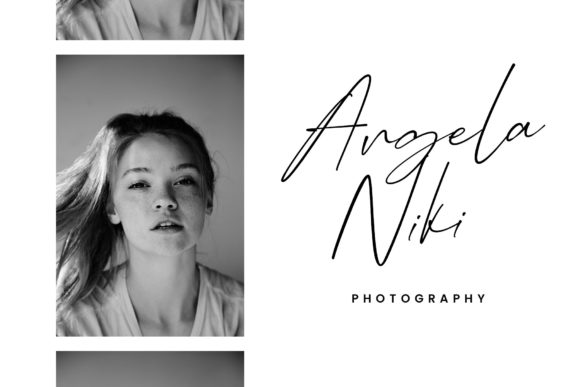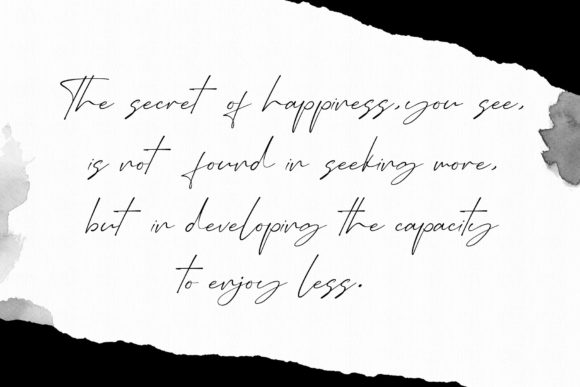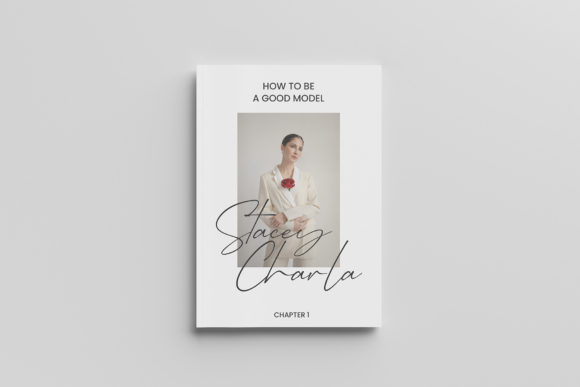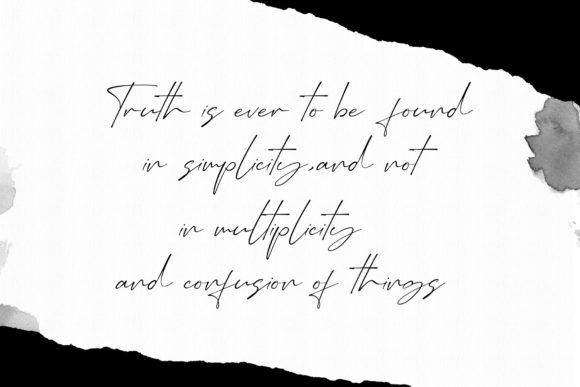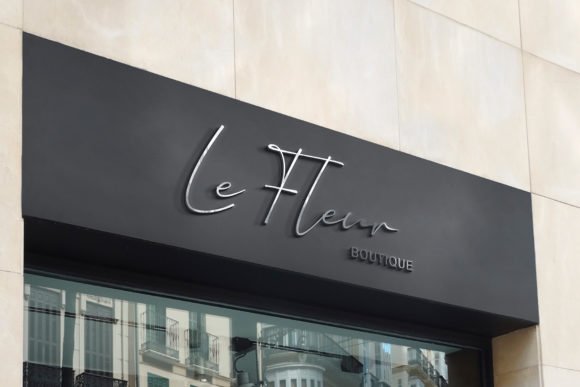
About Vorteril Font
Vorteril is a sweet, whimsical, flowing and thin script font. Featuring characters that dance along the baseline, this font will add a luxury spark to any design project that you wish to create!